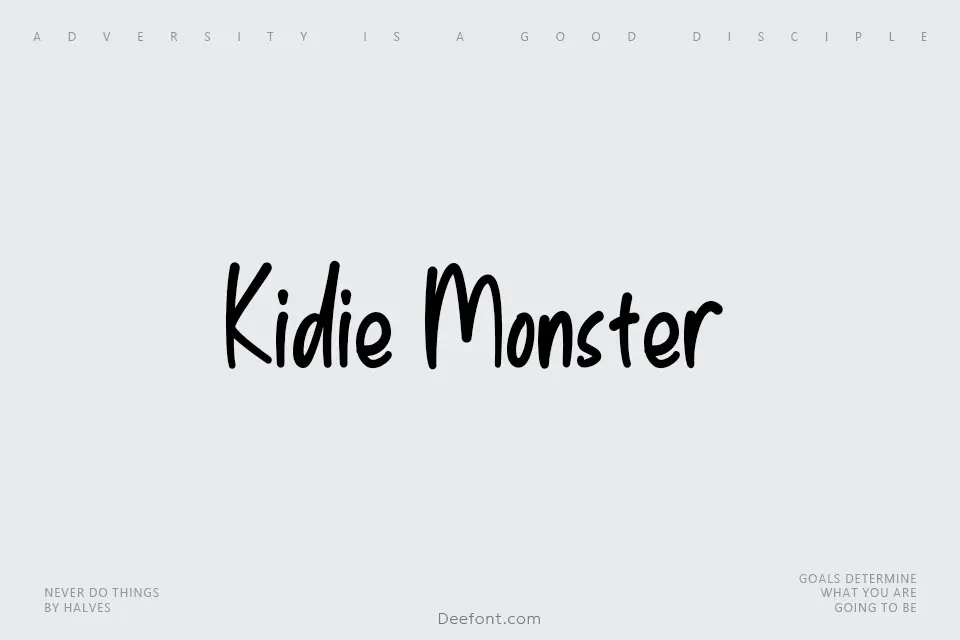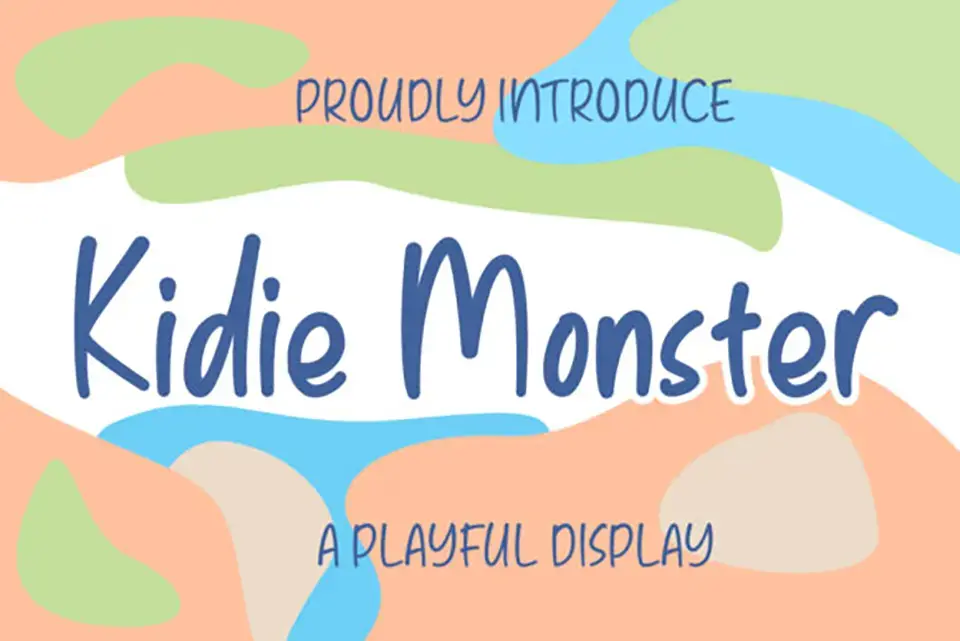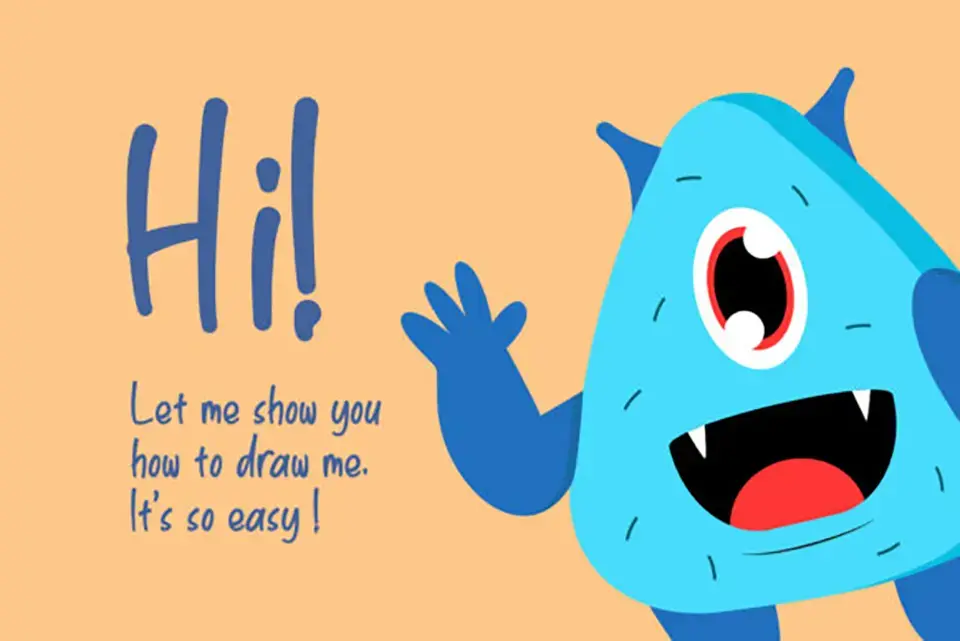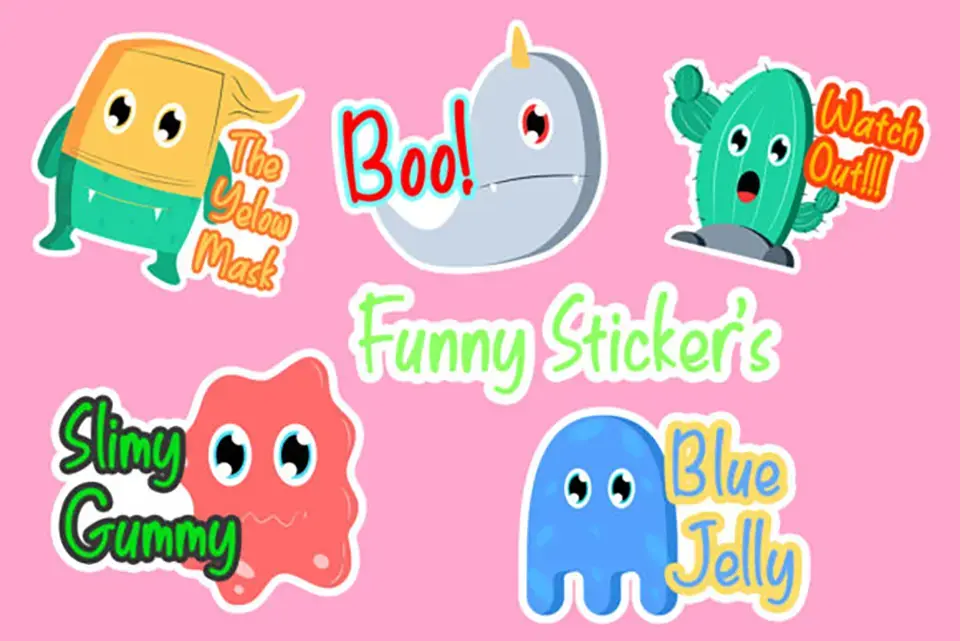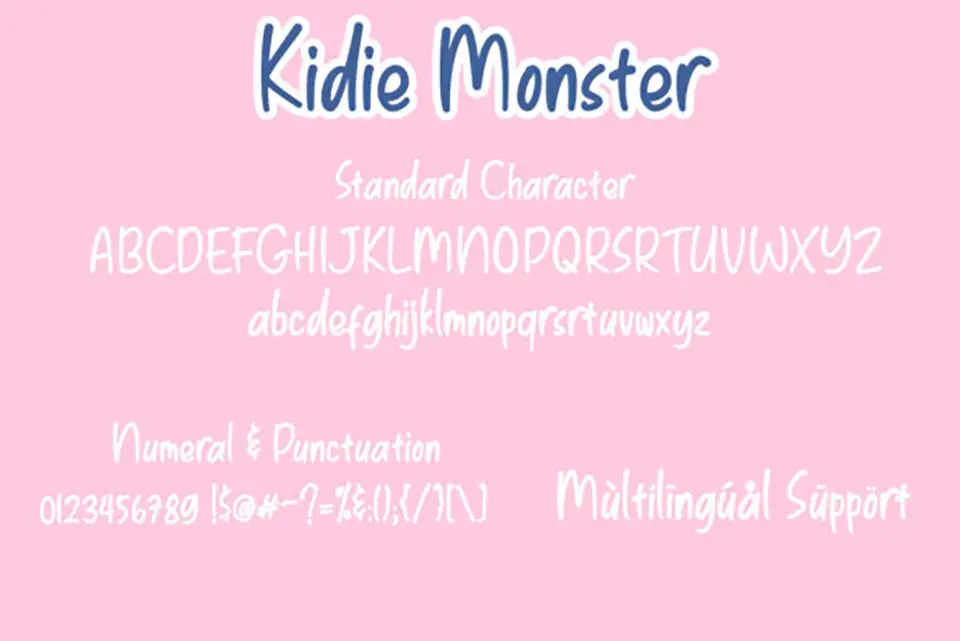
Kidie Monster Font
Kidie Monster is a sweet and approachable display font that brings instant personality to any creative project. With rounded, hand-drawn letterforms and a friendly demeanor, this font features a playful character that appeals to both children and designers seeking whimsical aesthetics. The casual, informal style makes it ideal for school projects, birthday invitations, educational materials, posters, greeting cards, and comic book lettering. Perfect for adding warmth and charm to titles, headlines, and decorative text in designs targeting younger audiences or nostalgic themes.